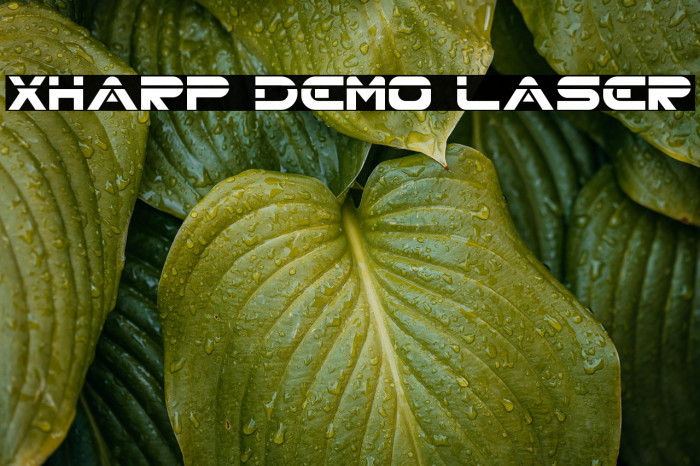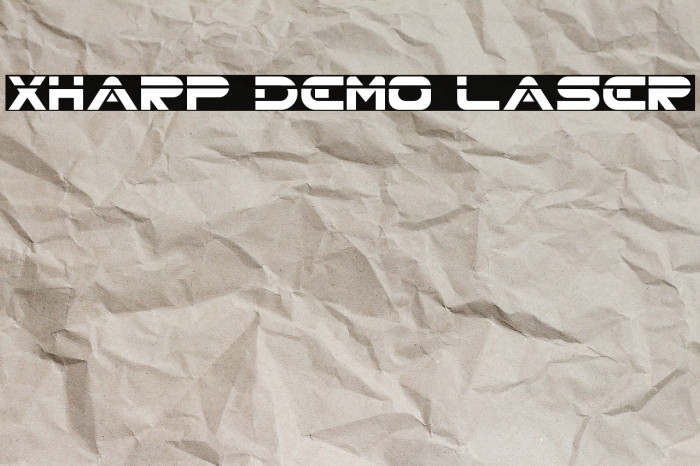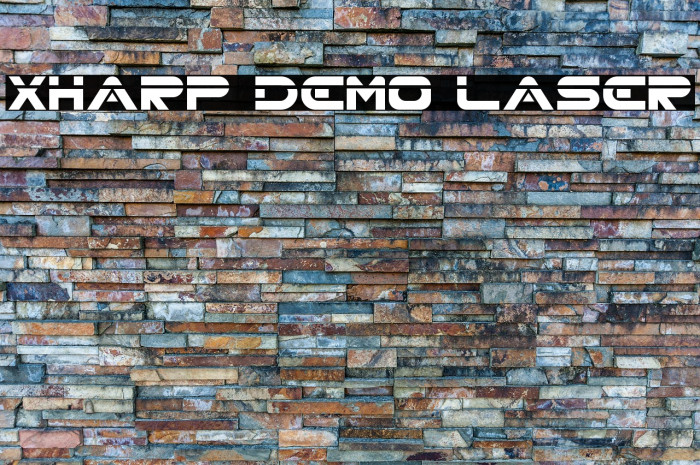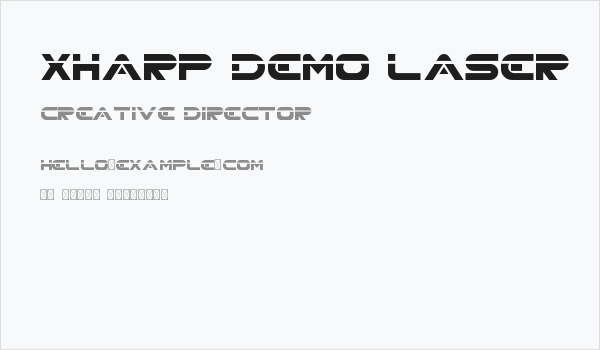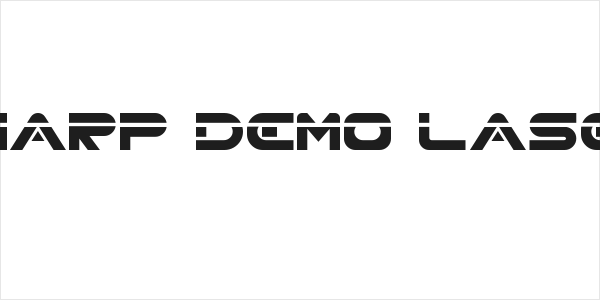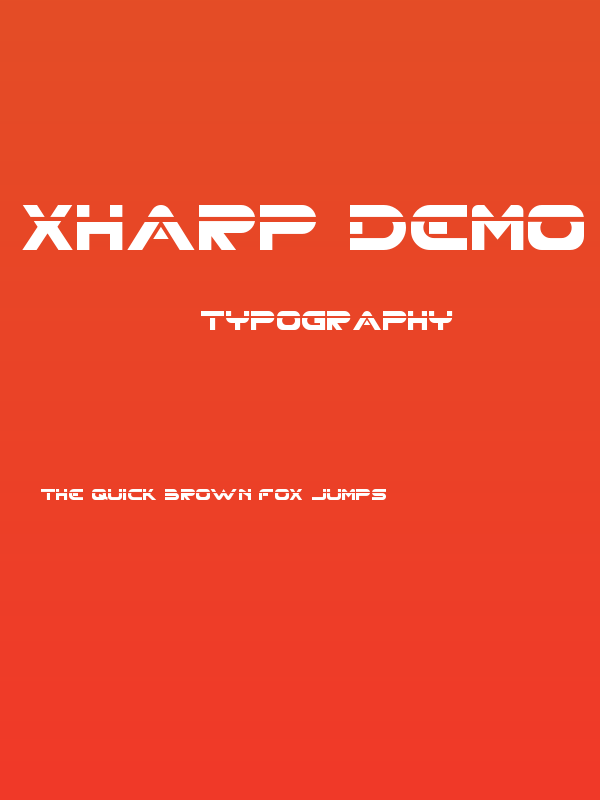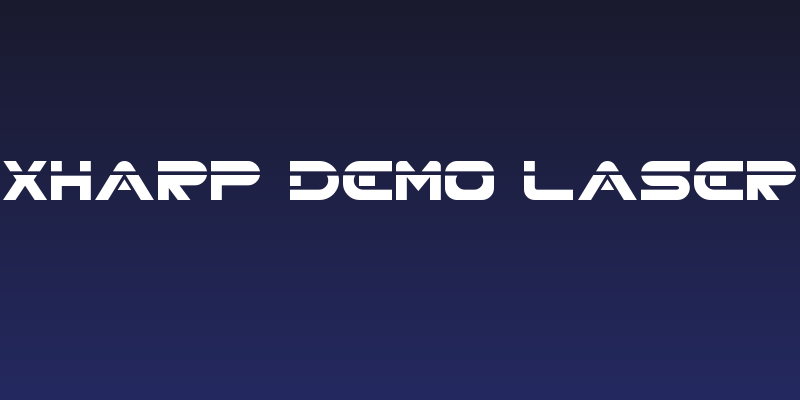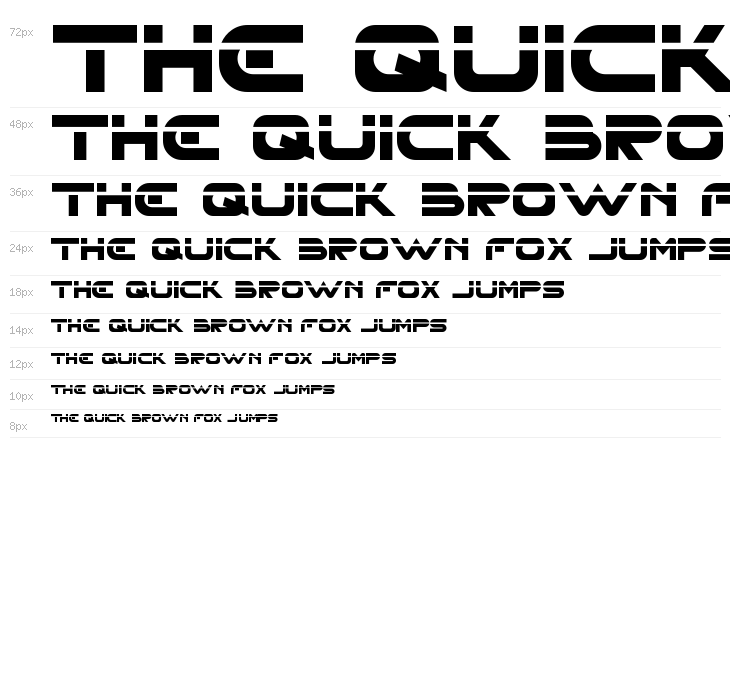
XHARP Demo LASER Font
XHARP Demo LASER Description
This font features a futuristic and geometric design, characterized by its sharp angles and clean lines. The uppercase letters are bold and striking, with a distinct cut-out style that gives them a modern, digital appearance. The uniformity in the design of each character creates a cohesive and visually appealing look. The font's style is reminiscent of technology and innovation, making it suitable for projects that aim to convey a sense of modernity and forward-thinking. It is particularly effective in settings where a strong, impactful visual statement is desired.
| Proposed Projects | Ideal for technology branding, sci-fi themed designs, video game titles, and innovative product packaging. |